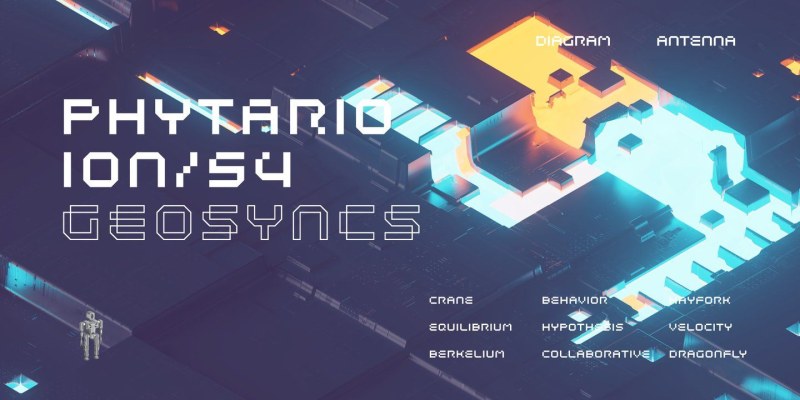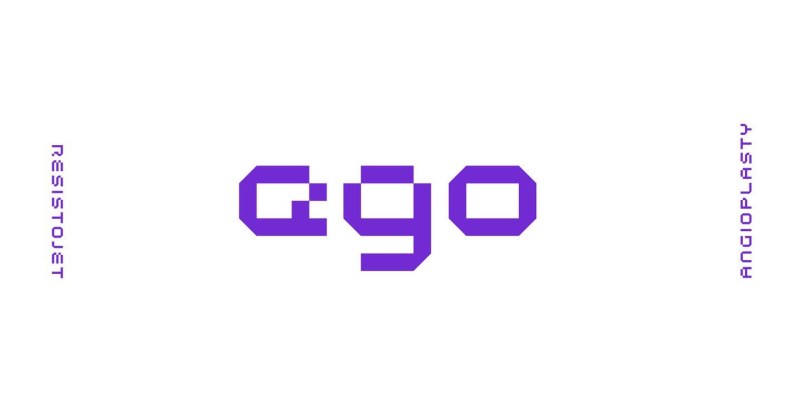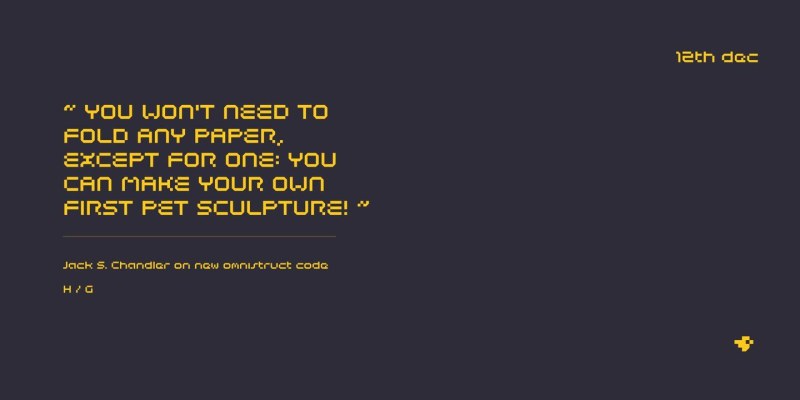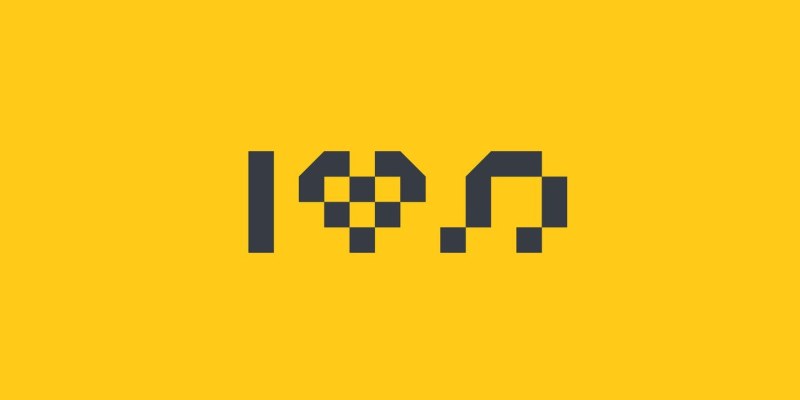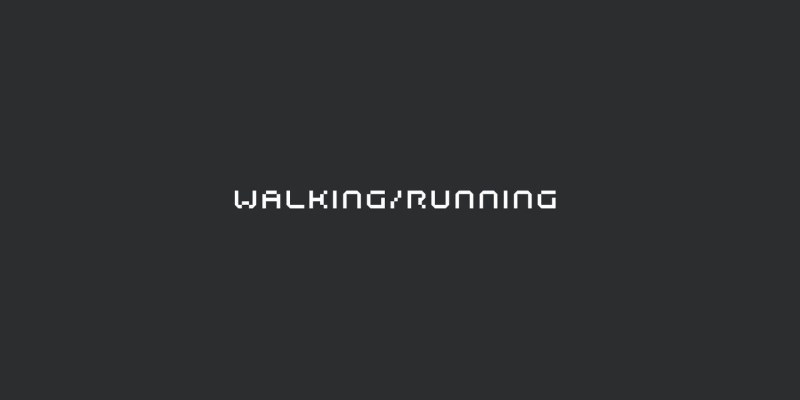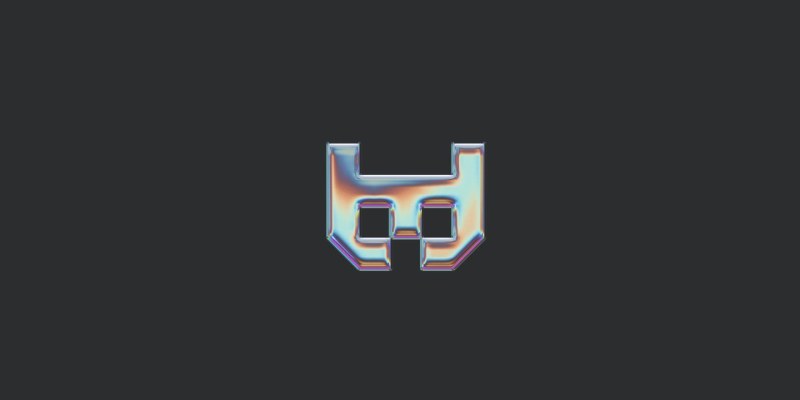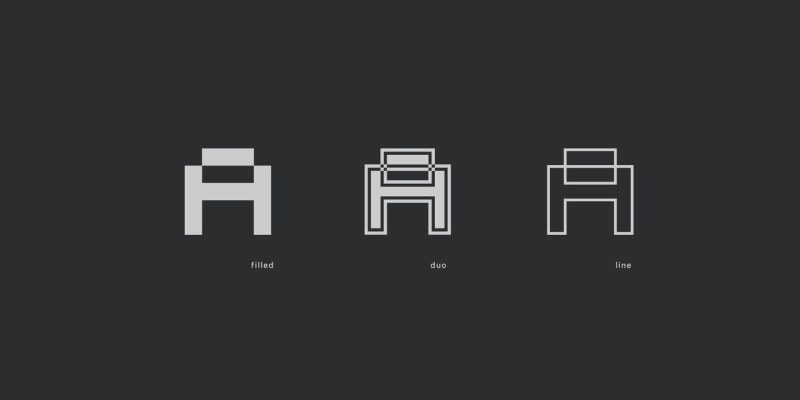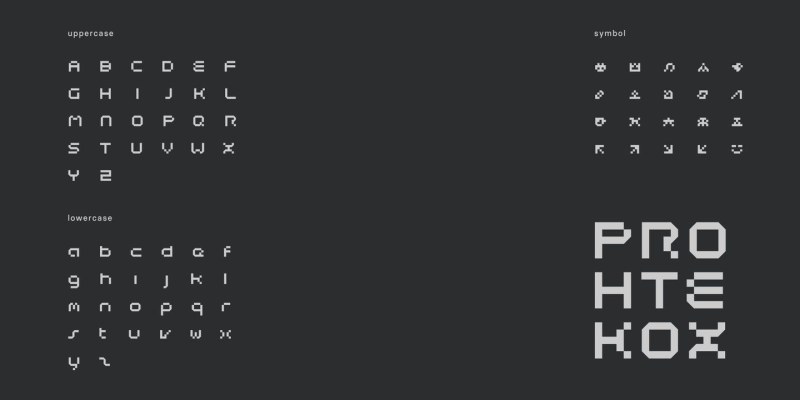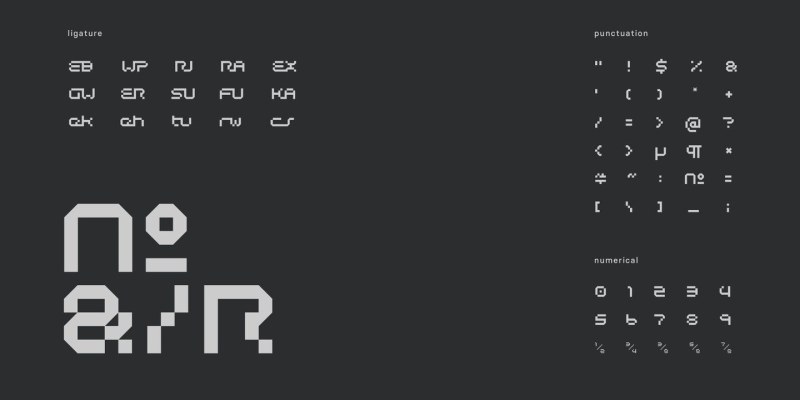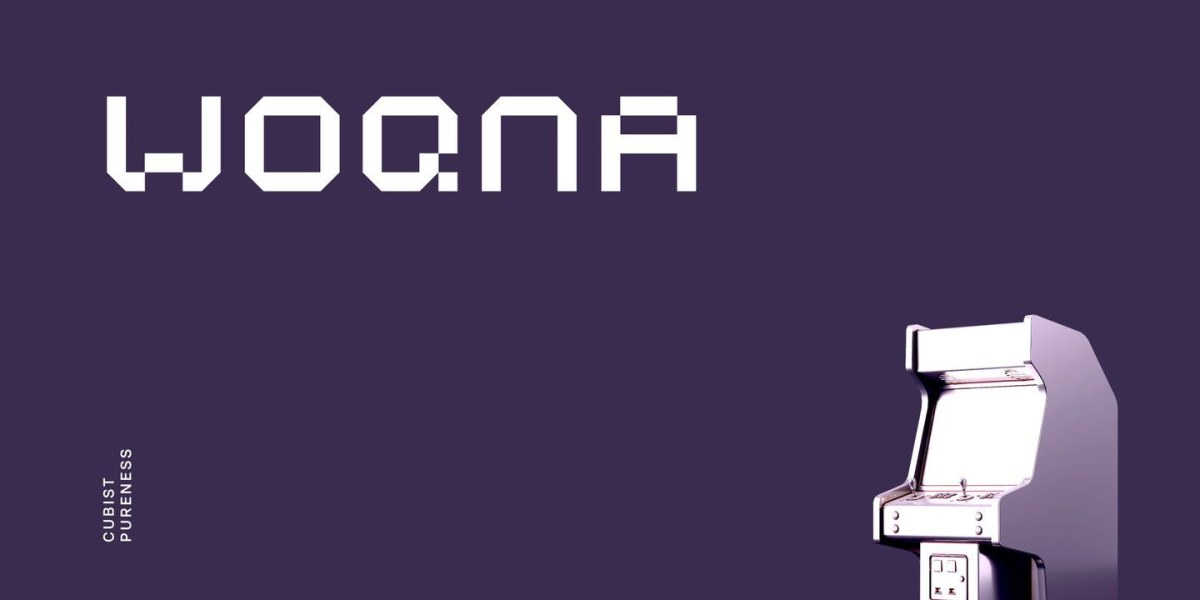
Woqna Font Family
Woqna is a cubist pureness tech sans apt for headline, editorial, branding, packaging, printed materials and typographic applications. 200+ glyphs with ligatures and fractions provided in opentype .otf format.
Woqna Font Family is a Display Fonts font that brings a professional and versatile look to your projects. Woqna is a cubist pureness tech sans apt for headline, editorial, branding, packaging, printed materials and typographic applications.